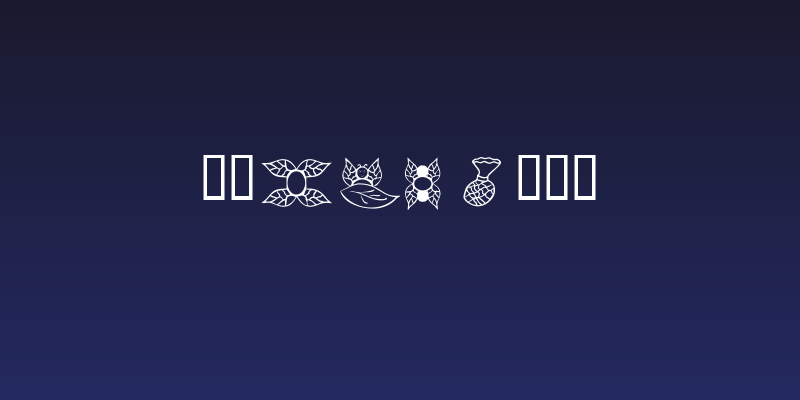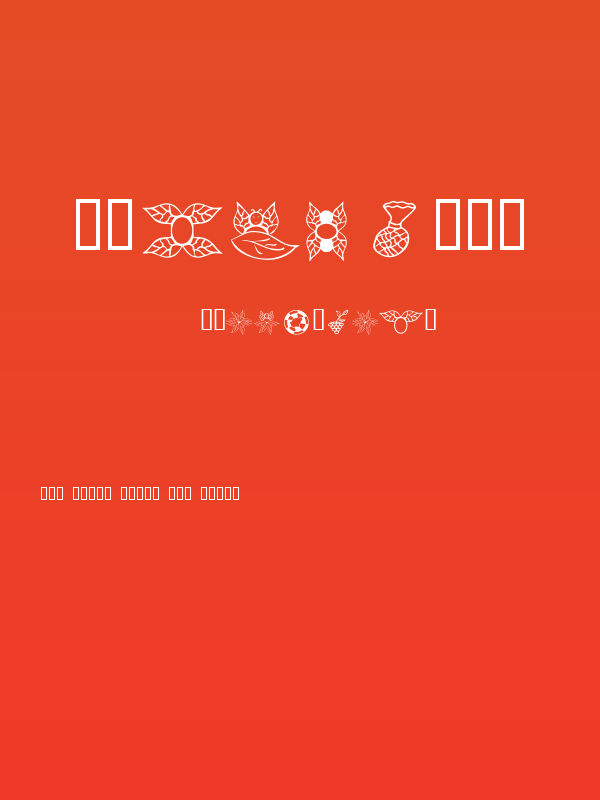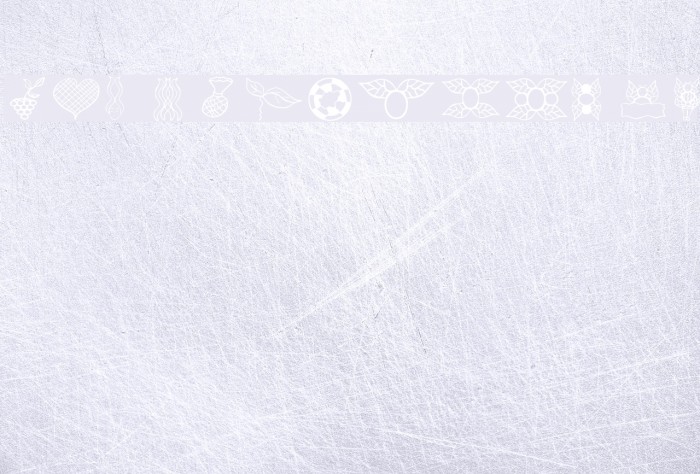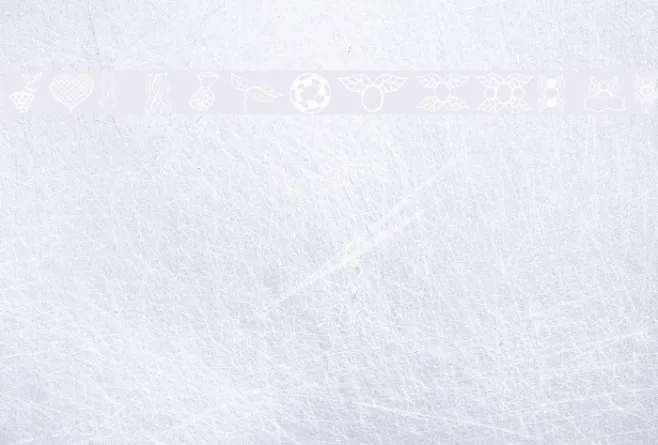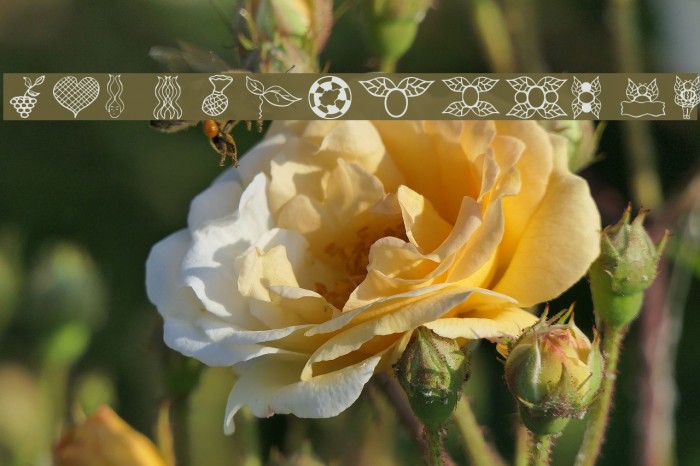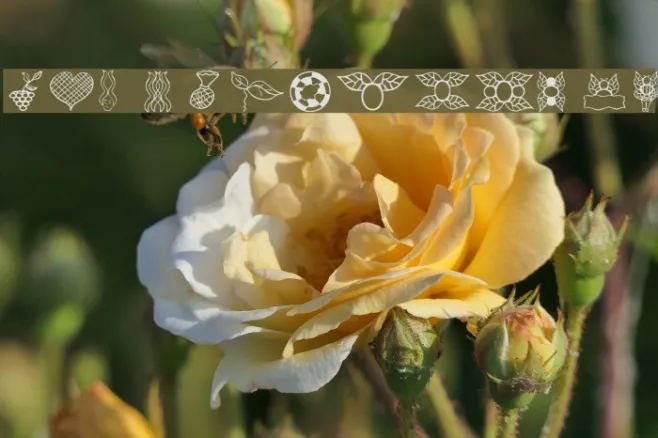
Trinkets1 Font
Trinkets1 Description
This collection features a series of decorative symbols and icons, each with intricate detailing and unique designs. The elements include floral motifs, abstract shapes, and ornamental patterns that are perfect for embellishing various creative projects. The style is consistent throughout, offering a cohesive look that can be used to add a touch of elegance and sophistication. These symbols are versatile and can be integrated into digital designs, print media, or craft projects. The intricate line work and balanced compositions make them suitable for a wide range of applications, from branding to personal projects.
| Use Case | Logos, Decorative elements |
| Proposed Projects | Ideal for use in branding, invitations, digital scrapbooking, and decorative print media. |